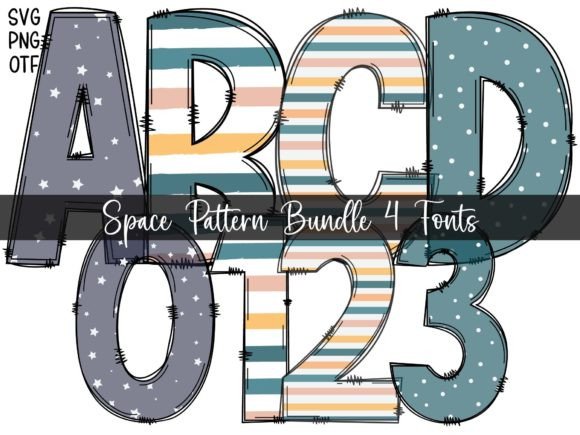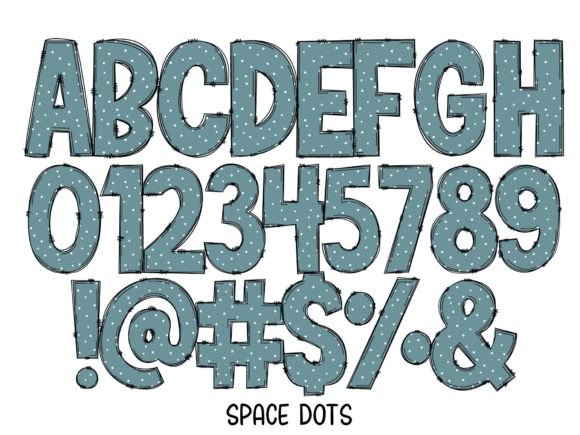
Space Pattern Font
Space Pattern is an incredibly unique and interesting color font with a space theme. Its bold and chunky letters make this font adapt to a wide variety of designs. Space will turn any creative idea into a true standout!